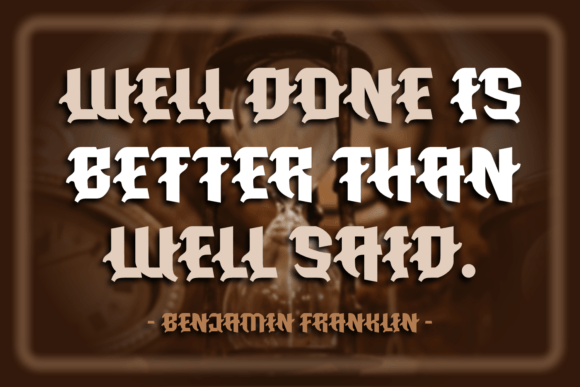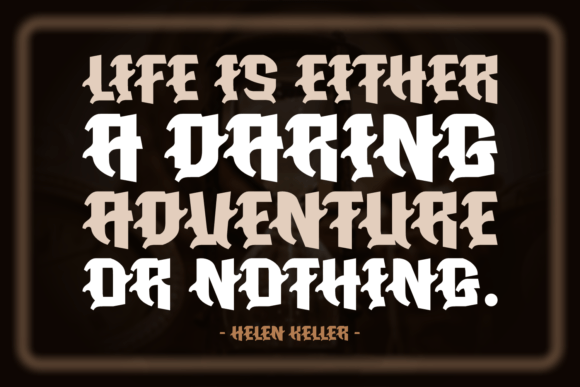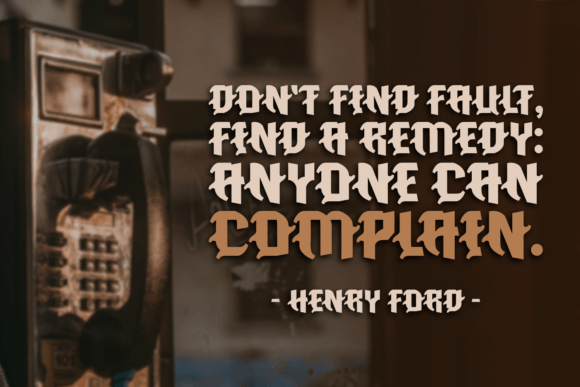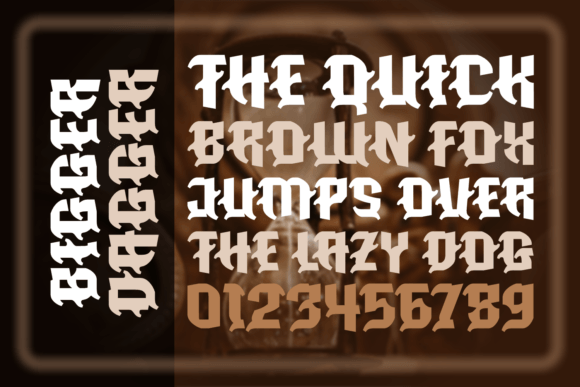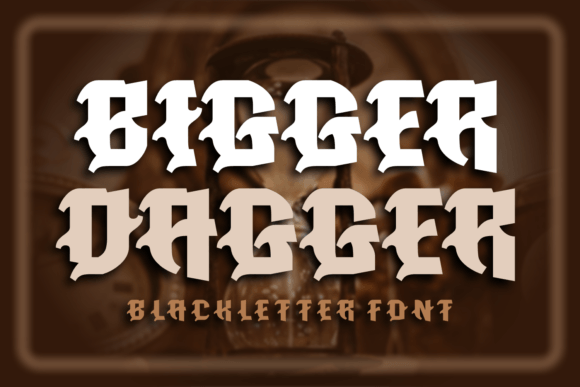
Bigger Dagger Font: Unleash the Power of Bold Blackletter Typography
In the world of typography, few fonts command attention and evoke a sense of strength and drama like Bigger Dagger. This bold blackletter font is designed to make a statement, with its heavy, angular strokes and sharp edges creating a striking and authoritative presence. Whether you’re a designer, crafter, or simply someone who appreciates the art of typography, Bigger Dagger is an excellent choice for projects that demand attention and convey power and intensity.
The Essence of Bigger Dagger
Bigger Dagger embodies the essence of Gothic typography, with its bold, rugged, and uncompromising design. The font’s heavy strokes and sharp edges give it a fierce and intimidating appearance, making it perfect for designs that require a strong visual presence. The font’s blackletter style is reminiscent of traditional Gothic scripts, but with a modern twist that makes it suitable for a wide range of applications.
Perfect for High-Impact Designs
Bigger Dagger is an ideal choice for designs that demand attention and convey power and intensity. Its strong visual presence ensures that it captures attention immediately, making it perfect for:
- Branding: Use Bigger Dagger to create a bold and memorable brand identity that commands respect and attention.
- Album Covers: Add a touch of drama and intensity to your music album covers with Bigger Dagger’s bold and striking design.
- Posters: Create eye-catching posters that grab attention with Bigger Dagger’s heavy, angular strokes and sharp edges.
- Logos: Design a bold and confident logo that makes a statement with Bigger Dagger’s powerful typography.
- Headlines: Use Bigger Dagger to create attention-grabbing headlines that demand attention and convey strength and intensity.
Why Choose Bigger Dagger?
So, why choose Bigger Dagger over other fonts? Here are just a few reasons why this bold blackletter font stands out:
- Unique and Memorable: Bigger Dagger’s bold and striking design makes it instantly memorable and recognizable.
- Versatile: Despite its bold design, Bigger Dagger is surprisingly versatile and can be used in a wide range of applications.
- High-Impact: Bigger Dagger’s strong visual presence ensures that it captures attention immediately, making it perfect for designs that demand attention.
- Easily Readable: Despite its bold design, Bigger Dagger is surprisingly easy to read, even at smaller sizes.
Tips for Using Bigger Dagger
To get the most out of Bigger Dagger, here are a few tips to keep in mind:
- Use it Sparingly: Bigger Dagger is a bold font, so use it sparingly to avoid overwhelming your design.
- Pair it with Contrasting Fonts: Pair Bigger Dagger with contrasting fonts to create visual interest and add depth to your design.
- Experiment with Colors: Bigger Dagger looks great in a range of colors, so don’t be afraid to experiment and find the perfect hue for your design.
Bigger Dagger is a bold and powerful font that embodies strength, drama, and a fierce Gothic aesthetic. Its heavy, angular strokes and sharp edges create a striking and authoritative presence, making it an ideal choice for designs that demand attention and convey power and intensity. Whether you’re a designer, crafter, or simply someone who appreciates the art of typography, Bigger Dagger is an excellent choice for projects that require a strong visual presence. So why not give it a try and unleash the power of bold blackletter typography in your designs?